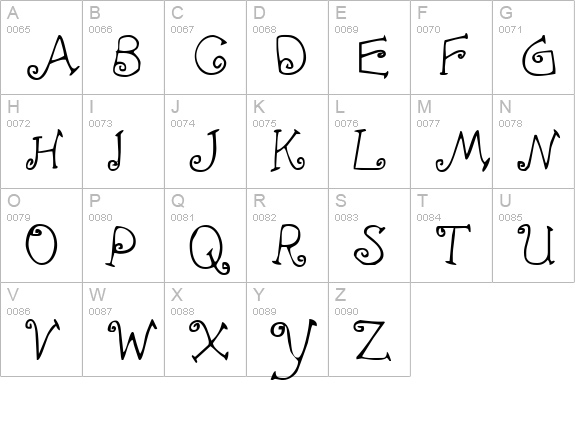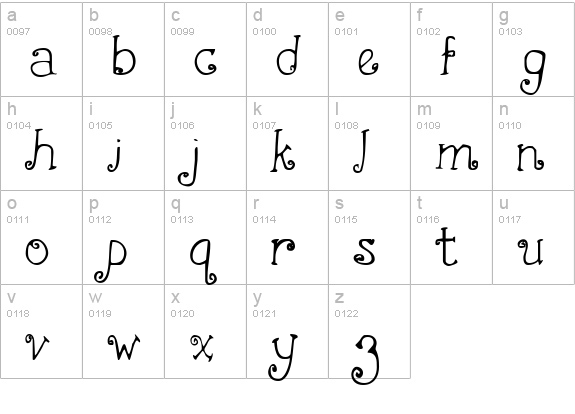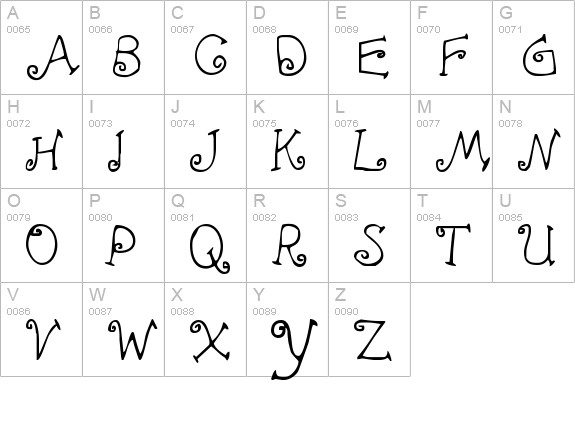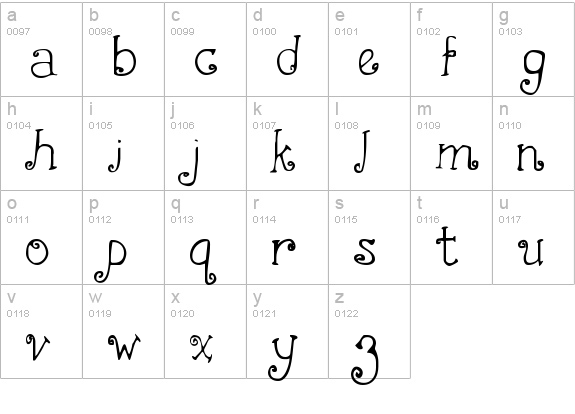
Introducing First Crush font, a whimsical and charming typeface perfect for adding a touch of playfulness to your designs. This delightful font captures the essence of a first crush - innocent, sweet, and full of excitement. With its soft curves and elegant letterforms, First Crush is sure to captivate your audience and bring a sense of nostalgia to your projects. Best of all, First Crush font is completely free to download at FontsMarket.com. Whether you're working on a romantic invitation, a cute greeting card, or a dreamy poster, this font will add a touch of magic to your creations. Don't miss out on the opportunity to use this enchanting typeface in your designs. Download First Crush font today and let your creativity blossom!